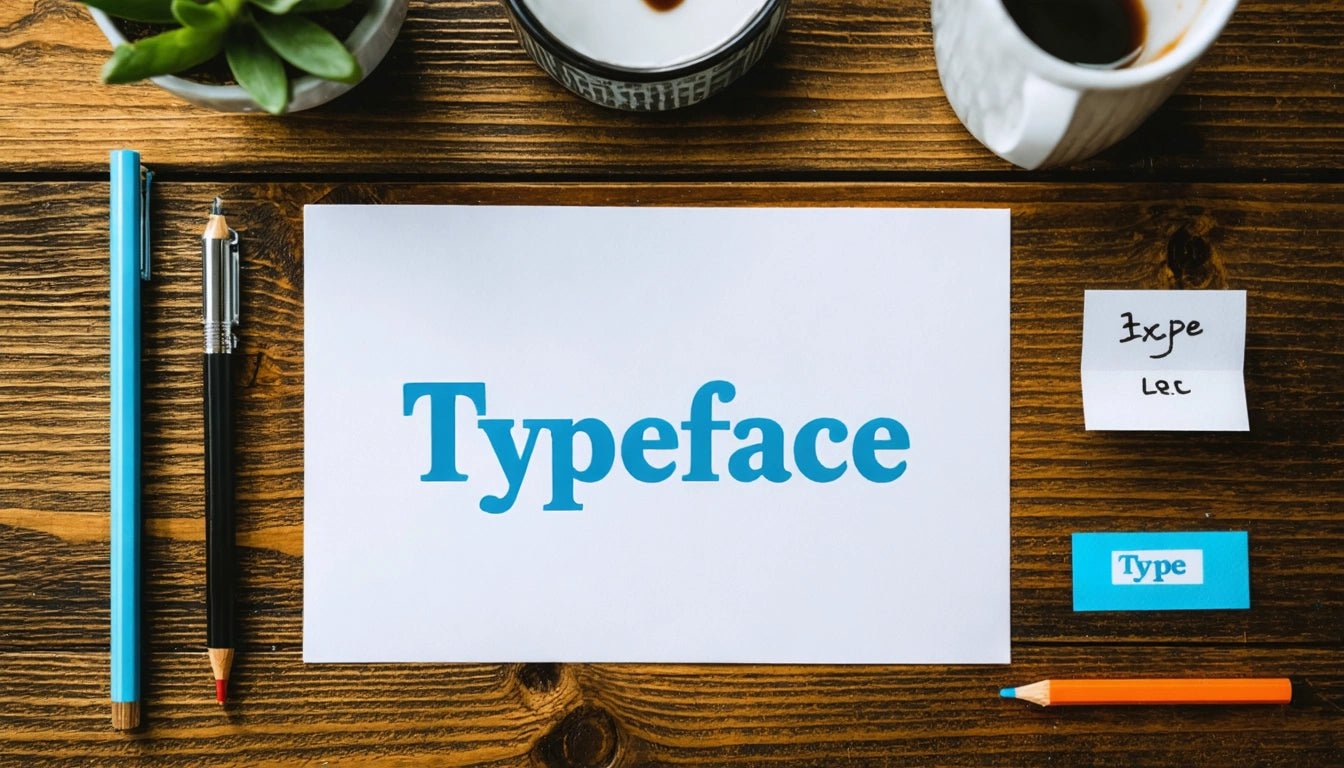
Understanding Typeface: Definitions and Variations
Typography plays a crucial role in visual communication, with typefaces serving as the foundation of how written language is presented visually. Understanding what defines typeface and the various styles available helps designers, marketers, and businesses effectively communicate their message through the written word.
What Defines a Typeface: Fundamentals and Terminology
A typeface is a set of characters with a consistent design that includes letters, numbers, punctuation marks, and symbols. Each typeface has unique characteristics that define its appearance, personality, and functionality. These characteristics include stroke width, serifs (or lack thereof), proportions, and overall aesthetic qualities.
When we define typeface in professional terms, we're referring to the complete collection of these characters designed with consistent visual properties. As explained in this comprehensive guide on typography definitions, typefaces are created with specific moods, purposes, and historical contexts in mind.
Typeface vs. Font: Understanding the Distinction
Though often used interchangeably, typeface and font have distinct meanings:
- Typeface: The design of the characters (e.g., Helvetica, Times New Roman, or Georgia)
- Font: A specific size, weight, and style of a typeface (e.g., Helvetica Bold 12pt, Times New Roman Italic 10pt)
This distinction dates back to traditional printing when fonts referred to physical sets of metal type in a specific size and style. Today, with digital typography, the line between these terms has blurred, but understanding the difference helps in professional communication about design.
Major Typeface Classifications and Families
Serif Typefaces
Serif typefaces feature small decorative strokes or "feet" at the ends of characters. These typefaces are often associated with tradition, reliability, and formality. Common serif typefaces include Times New Roman, Georgia, and Baskerville. This guide to popular serif typefaces explores their historical significance and modern applications.
Sans Serif Typefaces
Sans serif typefaces lack the decorative strokes found in serif typefaces, giving them a cleaner, more modern appearance. They're often used in digital interfaces and contemporary designs. Popular sans serif typefaces include Helvetica, Arial, and Futura. This resource on sans serif fonts details their evolution and best practices.
Script Typefaces
Script typefaces mimic handwriting or calligraphy, featuring flowing, connected characters. They range from formal (like Copperplate) to casual (like Brush Script). These typefaces add personality and a human touch to designs.
Display Typefaces
Display typefaces are designed for use at large sizes in headings, titles, and signage. They often have distinctive, decorative characteristics that might reduce readability at small sizes but create strong visual impact when used appropriately.
When selecting typefaces for various applications, designers must consider not only aesthetics but also practical concerns like readability across different mediums and contexts, much like how packaging designers must consider both visual appeal and functional requirements.
Anatomy of Typefaces: Key Components
Understanding the different typeface variations requires familiarity with their anatomical components:
- Baseline: The invisible line upon which most characters sit
- x-height: The height of lowercase letters (specifically the letter 'x')
- Cap height: The height of capital letters
- Ascenders: Parts of lowercase letters that extend above the x-height
- Descenders: Parts of lowercase letters that extend below the baseline
- Counter: The enclosed or partially enclosed space within a letter
These components vary between typefaces and contribute to their distinct appearances and legibility characteristics. For instance, typefaces with larger x-heights often appear more readable at small sizes, making them suitable for body text.
Practical Applications of Different Typefaces
Different typefaces serve various purposes in design and communication:
Branding and Identity
Companies select typefaces that align with their brand values and personality. A law firm might choose a serif typeface to convey tradition and authority, while a tech startup might opt for a clean sans serif to communicate innovation and simplicity.
Editorial Design
Newspapers, magazines, and books typically use highly readable typefaces for body text, often serifs due to their readability in long-form content. Headings and pull quotes might use more distinctive typefaces to create visual hierarchy.
Digital Interfaces
Websites, apps, and digital products often use sans serif typefaces optimized for screen display. As this comprehensive guide on font types explains, factors like screen resolution and reading conditions influence typeface selection for digital media.
Understanding what defines typeface and the range of different typeface options available empowers designers to make informed choices that enhance communication, establish appropriate tone, and create memorable visual experiences. Whether in print, digital media, or environmental design, typefaces remain one of the most powerful tools in visual communication.